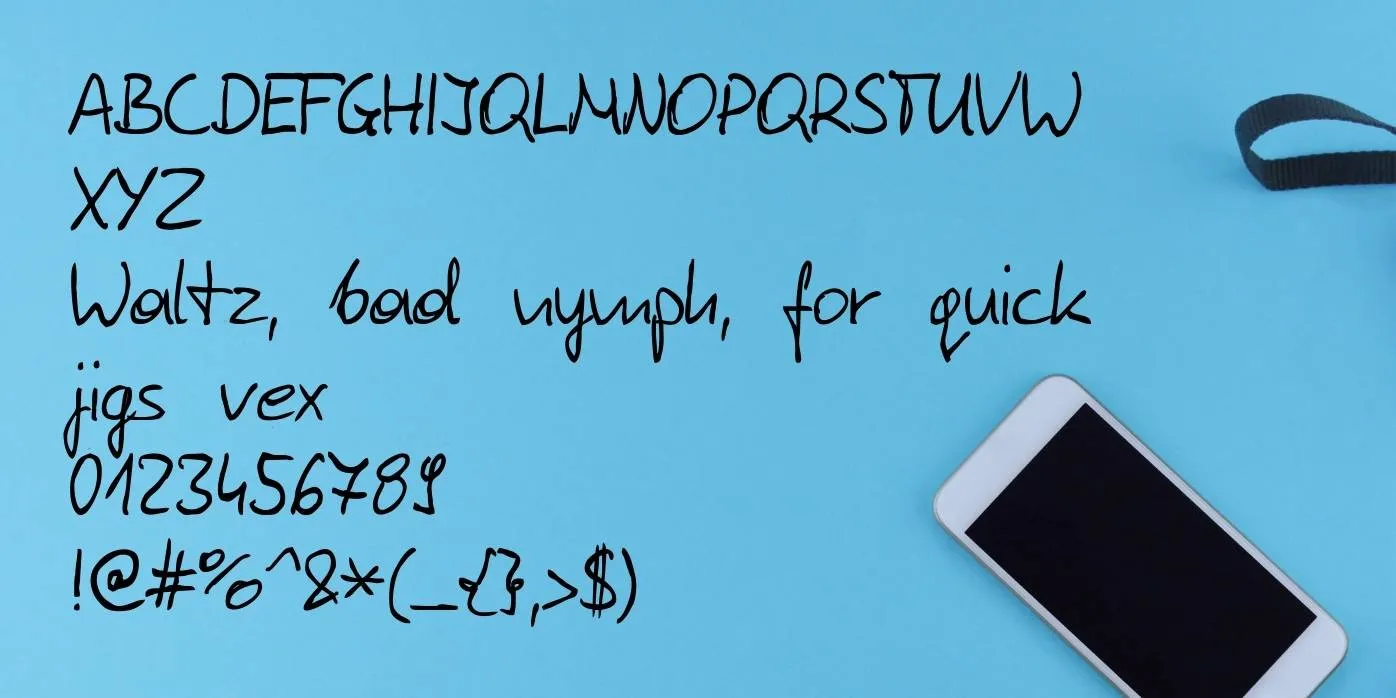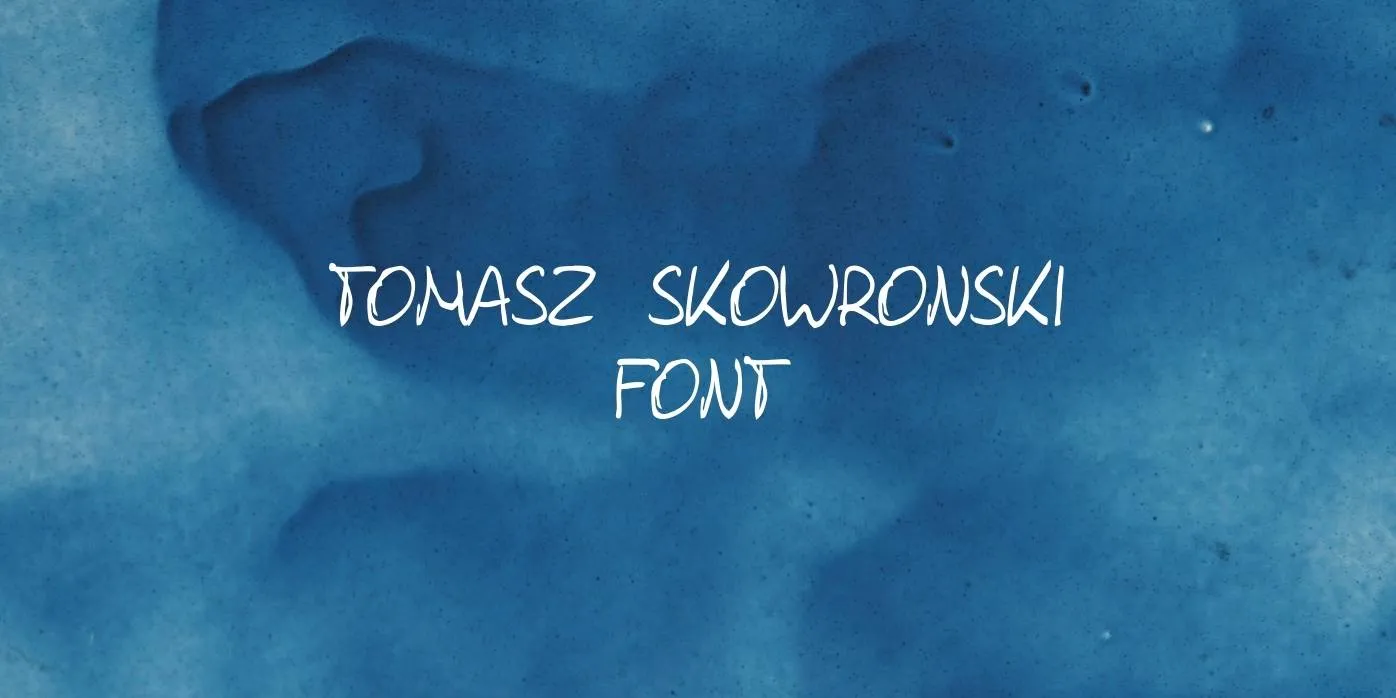
Tomasz Skowronski Font
Introducing a very beautiful and stylish typeface that is Tomasz Skowronski Font. The designer of this cool font is “Tomasz Skowro≈Ñski”. It belongs to a Script Font family and it has a TrueType feature. The typeface is very useful in many beautiful design projects because of its elegant shape and handwriting styles.
The font has the ability to support a lot of languages and is available for personal designing projects. Tomasz Skowronski Font has only regular style. It also comes with Uppercase and Lowercase Letters, Numbers / Numerals, Special Symbols, Elegant characters, and many best alternates as well. Its alternative characters are very special that is advantageous for many design projects.